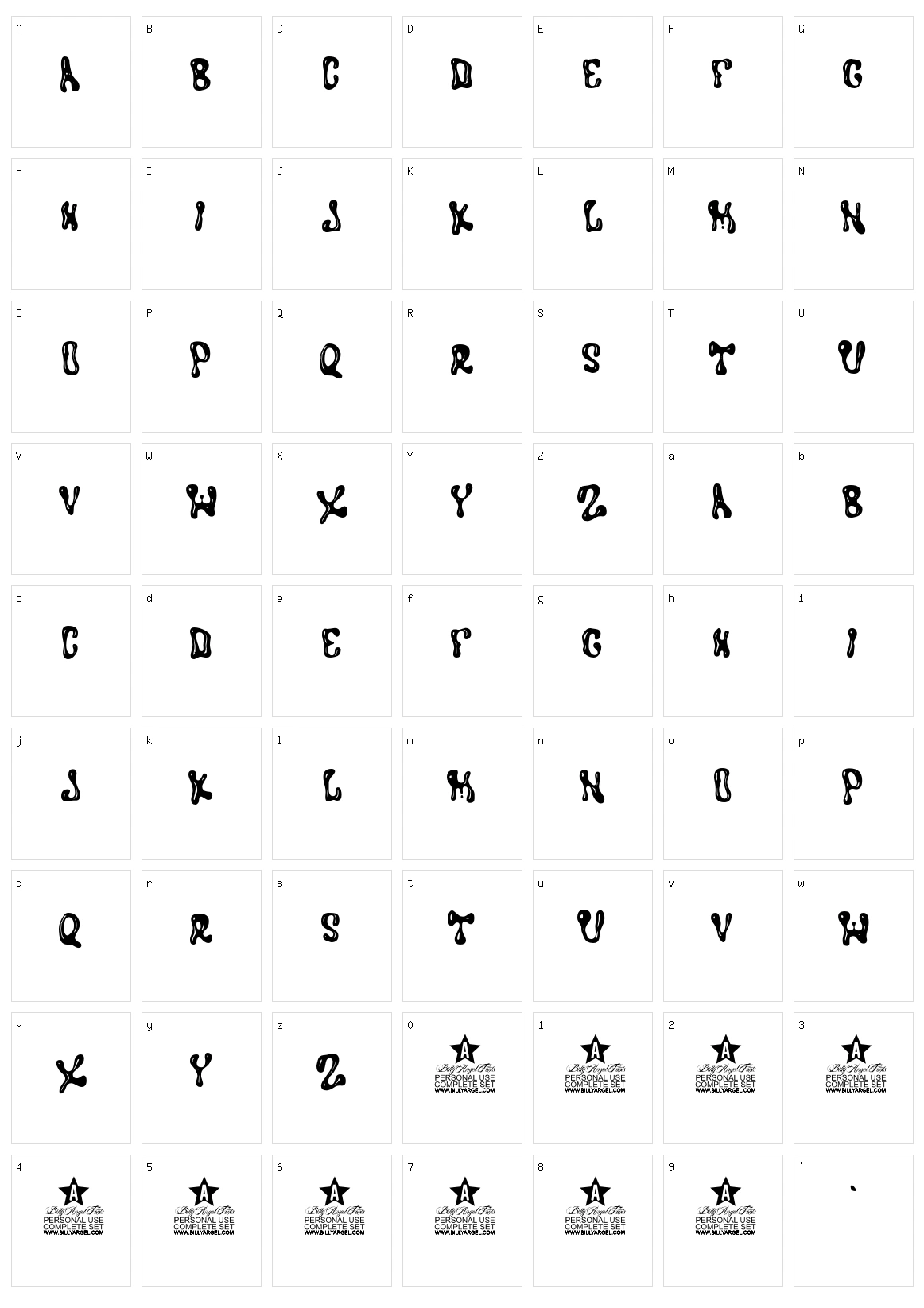
The free font Psycho is carefully designed by Billy Argel Fonts ®, showcasing a thoughtful balance of creativity and usability and falls under the Groovy font style. When you download the ZIP file, it contains only 4973.41 KB of font files, making it lightweight and quick to download. Please review the license details below to understand permitted usage and distribution rights. If license information is not available, we recommend using this font for personal projects only or contacting the author directly for commercial usage permissions.